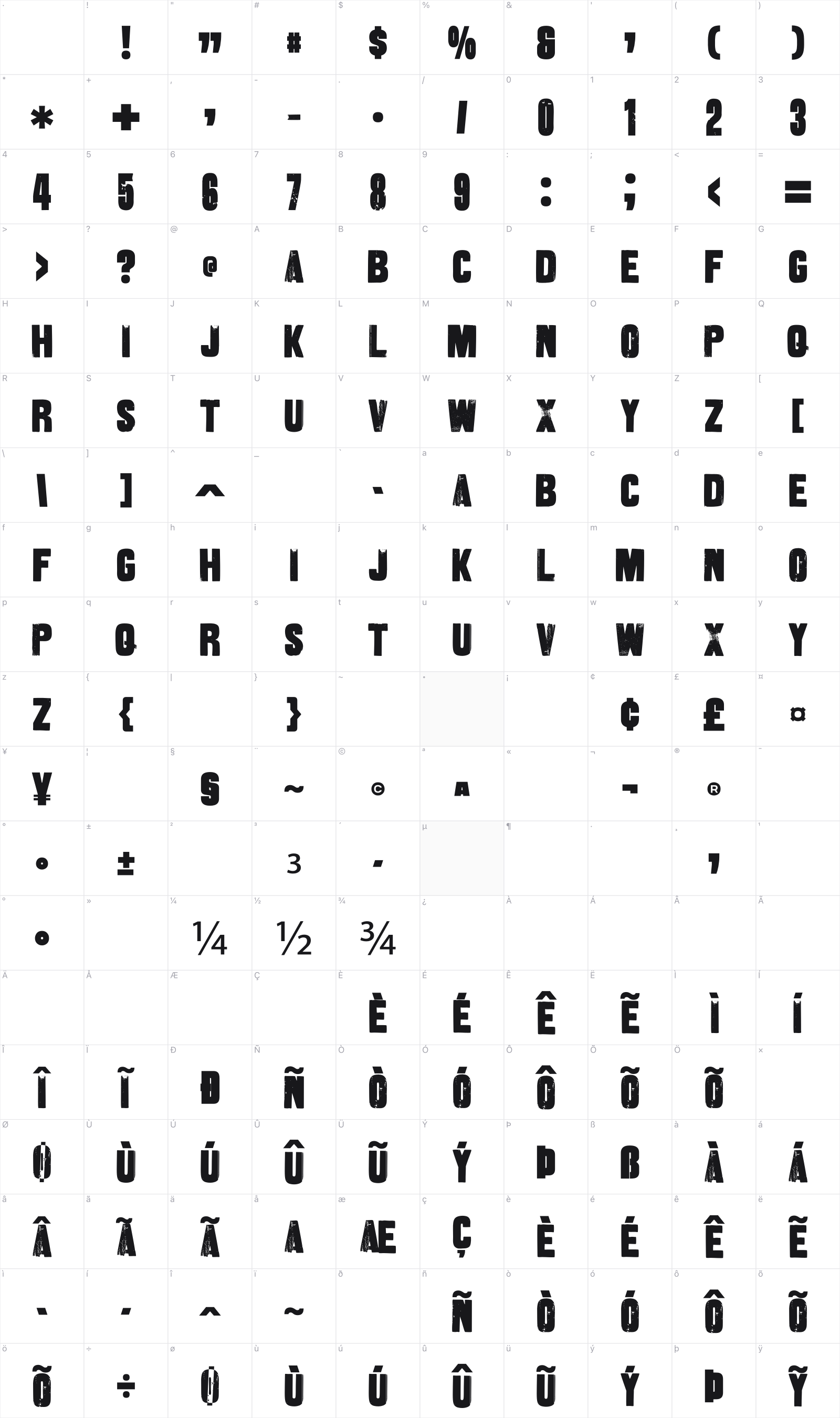
Heavy Dois
Heavy Dois is a massive, condensed sans-serif beaten into shape by a heavy distressed texture that erodes every edge and surface. The roughness feels deliberate and controlled, not accidental, giving it authentic grit rather than digital noise. Strong choice for concert posters, streetwear branding, and anything that needs to feel loud.